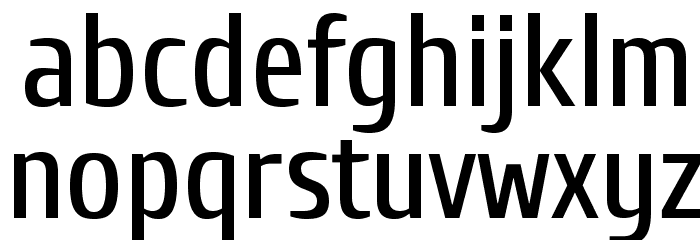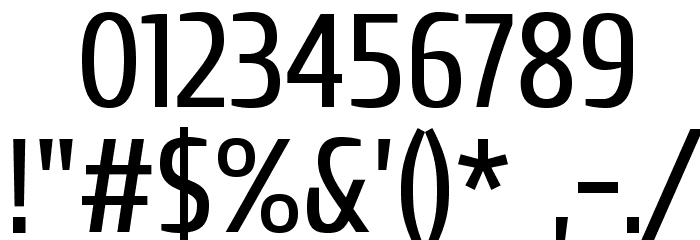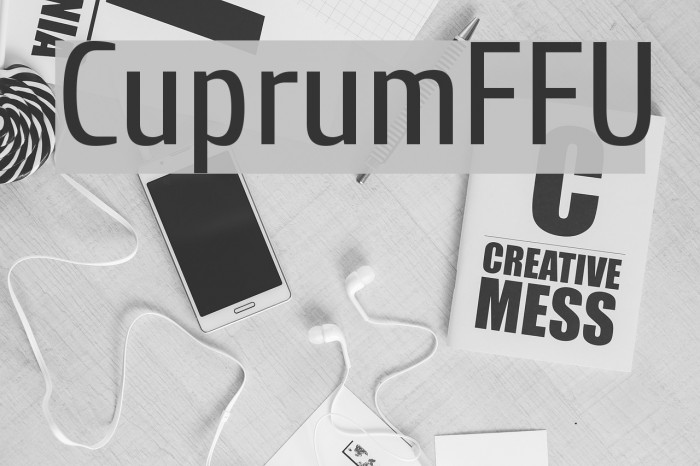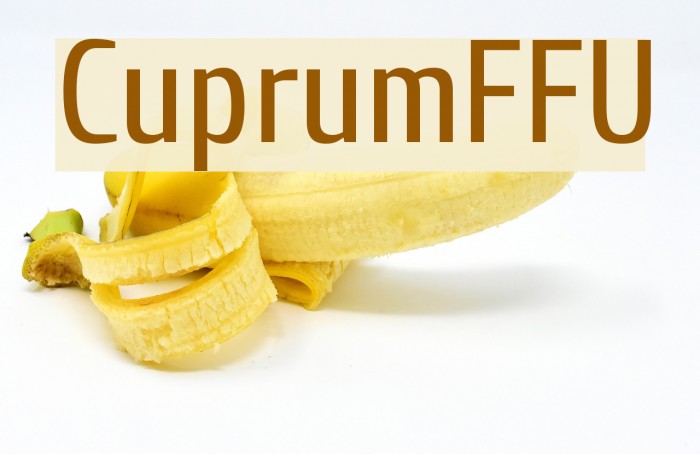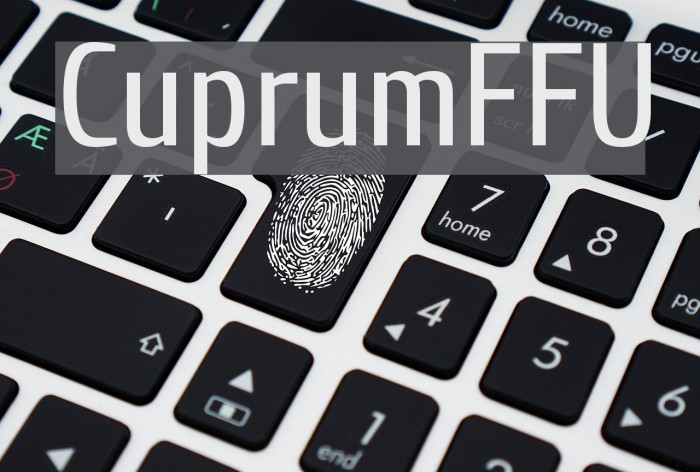
CuprumFFU Font
This font features a clean and modern sans-serif style with a slightly condensed appearance. The characters are well-proportioned, offering a harmonious balance between height and width. The strokes are consistent in weight, providing a uniform look across all characters. The uppercase letters are bold and assertive, while the lowercase letters maintain a friendly and approachable feel. The numerals are clear and easy to read, making them suitable for various applications. The special characters are distinct and well-integrated into the overall design, ensuring versatility in usage.
A modern, clean sans-serif font with a slightly condensed style.
- Proposed Projects: Ideal for web design, branding, advertising, and editorial layouts.